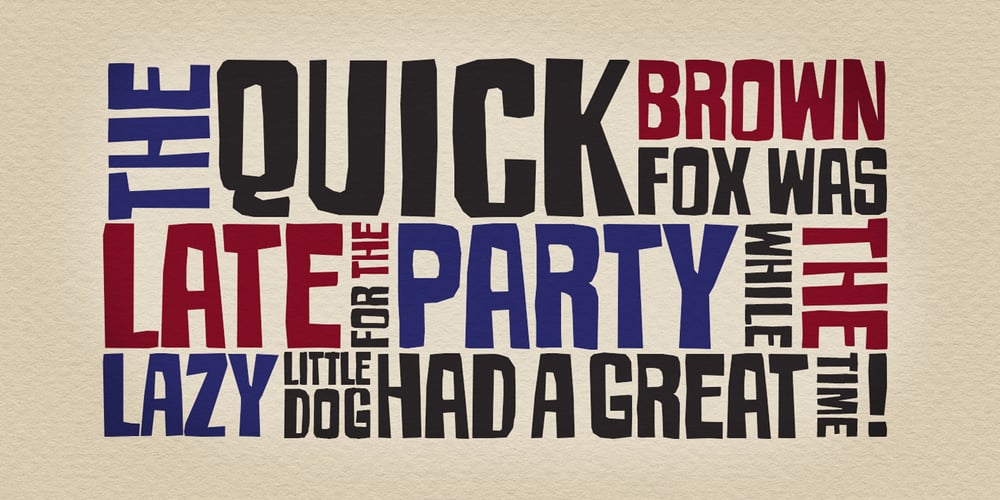
Armageda Font Family was designed by Deepak Dogra and published by Graphite. Armageda contains 4 styles and family package options. A rugged angular display typeface, with variations in the upper and lower case characters.